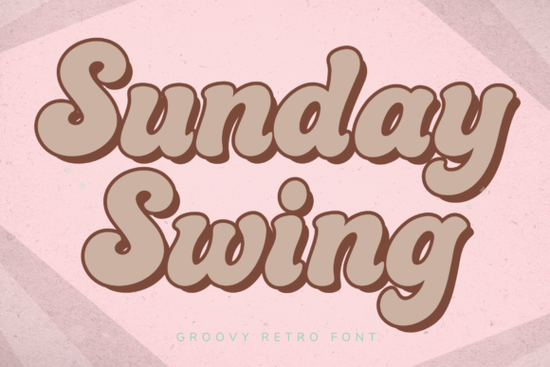
If you've been searching for a typeface that captures the free-spirited energy of the 1970s, the Sunday Swing font might be exactly what you need. It's a groovy retro font with chunky, rounded letterforms and smooth curves that feel like they belong on a vintage diner sign or a sunshine-filled weekend poster. Whether you're designing for print-on-demand products, building a brand identity, or just love retro typography, this font brings a cheerful, handcrafted look to any project.
What Makes Sunday Swing Stand Out from Other Retro Fonts?
A lot of retro fonts lean too hard into either looking old or trying too hard to look modern. Sunday Swing finds a sweet spot in between. The soft, inflated letterforms have that classic 70s signage feel think bold marquee letters with rounded edges and a friendly, approachable personality.
Here's what sets it apart:
- Chunky, rounded shapes that read well at both large and small sizes
- Smooth curves that give text a warm, almost tactile quality
- A playful retro personality without feeling gimmicky or overdone
- Consistent weight across all letterforms for a polished, professional look
The overall effect is something that feels nostalgic but fresh perfect for designers who want vintage charm without looking outdated.
What Can You Create with a Groovy Retro Font Like This?
This is where Sunday Swing really shines. Its versatility across different project types makes it a solid addition to any designer's font library. Here are some popular uses:
Branding and Logo Design
Sunday Swing works beautifully for brands that want to project warmth, fun, and approachability. Coffee shops, ice cream parlors, surf brands, music venues, and lifestyle companies can all benefit from this kind of display font that balances retro character with readability.
Print-on-Demand Products
If you sell on platforms like Redbubble, Merch by Amazon, or Etsy, a groovy retro font can help your designs stand out. Think about:
- Graphic t-shirts with funny or motivational quotes
- Tote bags and mugs with vintage-inspired text
- Stickers and decals with a 70s flair
- Posters and wall art for retro-themed rooms
Social Media and Marketing
Bold, personality-driven fonts like Sunday Swing grab attention in fast-scrolling feeds. It's a natural fit for Instagram posts, event flyers, sale announcements, and YouTube thumbnails where you want text that pops without relying on generic sans-serifs.
Event Invitations and Stationery
Planning a themed party, wedding, or community event? The groovy style brings instant character to invitations, menus, signage, and thank-you cards. It pairs especially well with earthy color palettes and textured paper backgrounds.
How Does It Compare to Similar Display Fonts?
If you're browsing for retro-inspired typefaces, you might also come across options like Tordeo and North Hype. Each brings a different flavor to the table. Tordeo tends toward a more structured, geometric look, while North Hype leans into bold streetwear aesthetics. Sunday Swing, by contrast, is all about that warm, feel-good weekend energy softer edges, rounder shapes, and a mood that says "kick back and enjoy."
Choosing between them really depends on the tone of your project. If your design calls for something friendly, nostalgic, and approachable, Sunday Swing is the strongest pick of the three.
Tips for Getting the Most Out of This Font
A few practical suggestions to help you use it effectively:
- Use it at larger sizes. Like most display fonts, Sunday Swing is designed for headlines, titles, and short text blocks not body paragraphs.
- Pair it with a clean sans-serif. A simple, neutral font for supporting text lets Sunday Swing take center stage without overwhelming the design.
- Experiment with letter spacing. Slightly tighter or wider tracking can change the whole feel, depending on your layout.
- Try it with warm, muted color palettes. Think mustard yellow, burnt orange, dusty pink, and olive green they complement the retro vibe perfectly.